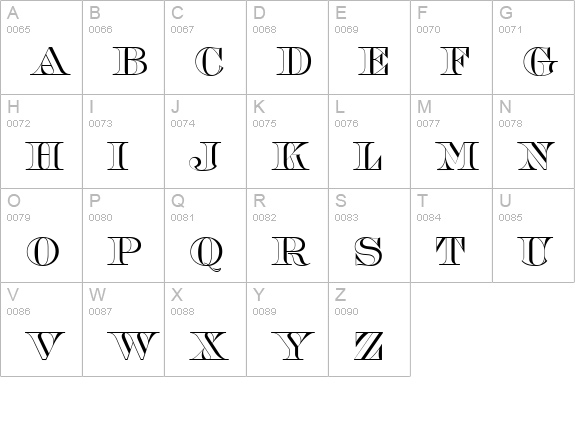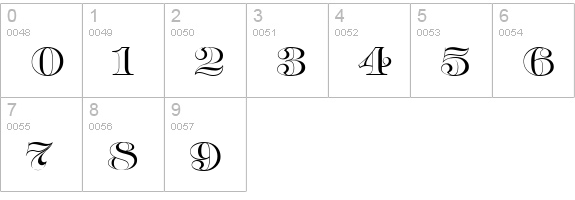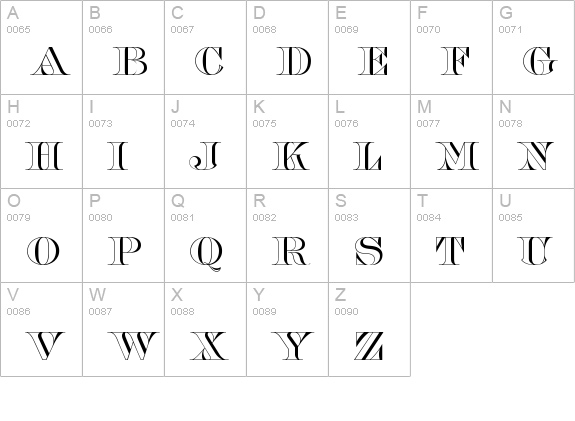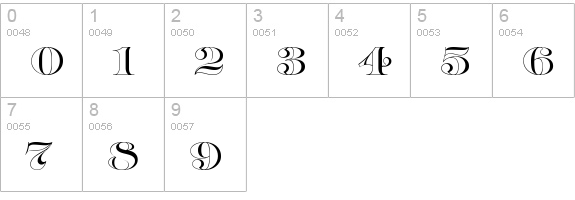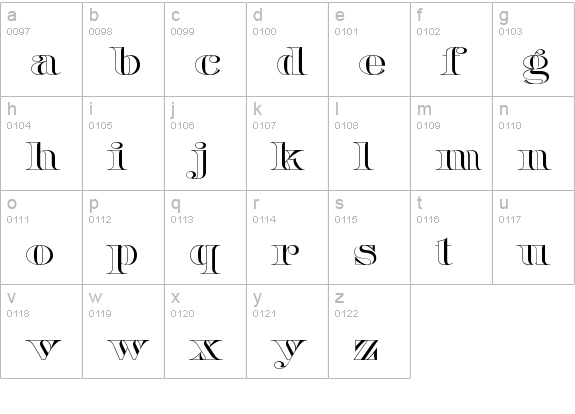
CgBarclayOpen Font Details
CgBarclayOpen is a stylish and modern font that exudes sophistication and elegance. Its sleek lines and clean design make it perfect for a wide range of design projects, from logos to branding to marketing materials. The font strikes a perfect balance between classic and contemporary, making it versatile and adaptable to various design styles. What sets CgBarclayOpen apart is that it is available for free! Yes, you heard that right - this stunning font can be downloaded at FontsMarket.com without any cost. Whether you are a designer looking to elevate your projects or a business owner seeking a fresh new look, CgBarclayOpen is the ideal choice for adding a touch of refinement to your designs. Download it today and unleash your creativity with this exceptional font.